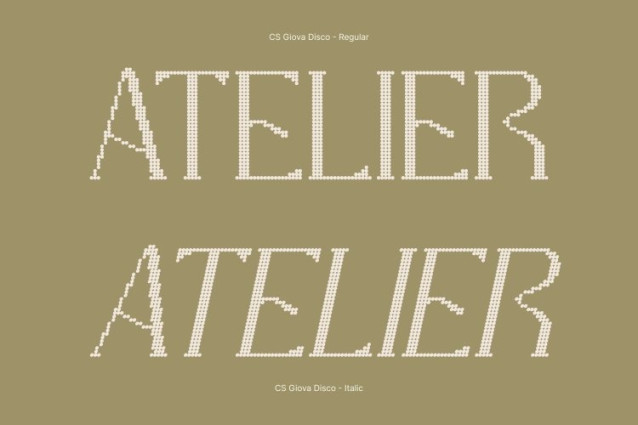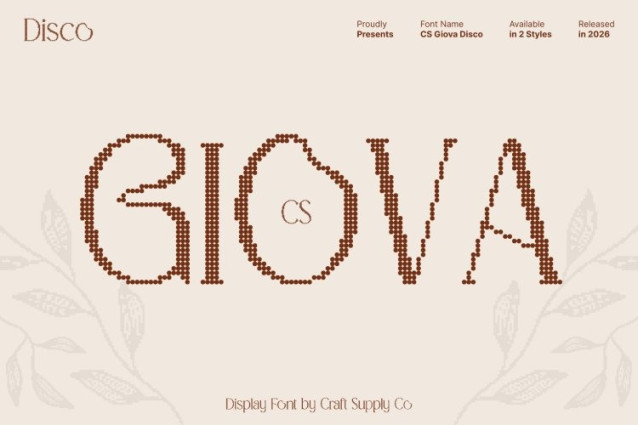
CS Giova Disco Font
CS Giova Disco Font This is a modern Art Nouveau display font defined by smooth organic lines and graceful movement, now infused with a vibrant disco spirit. Inspired by the flowing beauty of classic Art Nouveau and reimagined through a contemporary, nightlife-inspired lens, this font delivers an elegant yet energetic visual presence.
Organic Forms with Radiant Detail
The beauty of this font lies in its fluid letterforms and dynamic transitions. Each character flows with smooth, natural curves while carrying a subtle sense of rhythm evoking motion, music, and celebration. These elegant yet lively details bring a handcrafted feel with a sparkling edge, allowing the font to stand out confidently in expressive display settings.
Disco Energy with Modern Refinement
Blending decorative Art Nouveau elegance with disco-inspired flair, feels both luxurious and playful. The design captures the excitement of the dance floor, the glow of neon lights, and the pulse of festive nights, while its clean execution keeps it fresh and contemporary. This balance creates a font that is glamorous without being excessive, energetic without losing sophistication.
Perfect for Party Concepts, Fashion, and Statement Branding
Designed for high-impact visuals, is ideal for fashion campaigns, nightlife branding, event posters, party invitations, editorials, packaging, and premium visual identities. Its elegant yet festive display style elevates headlines and key messages with a bold sense of celebration, glamour, and modern artistry.